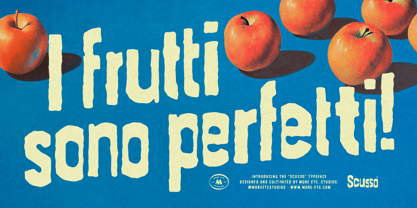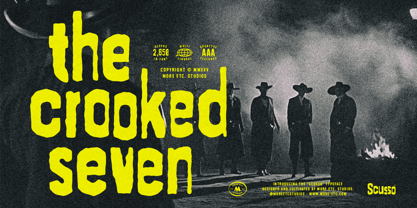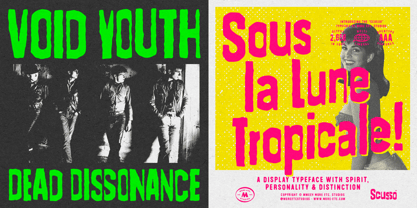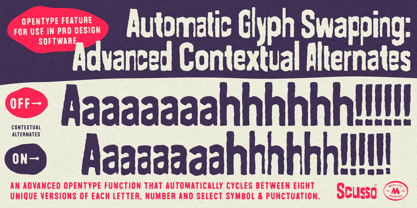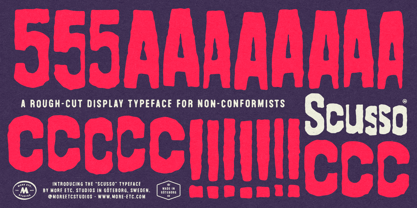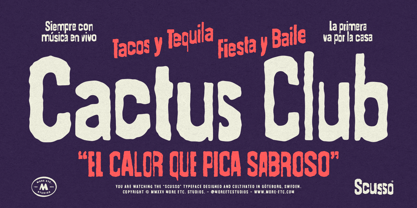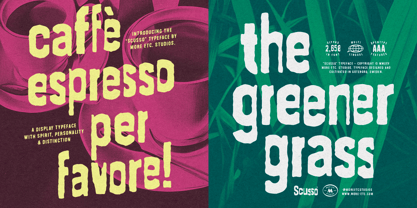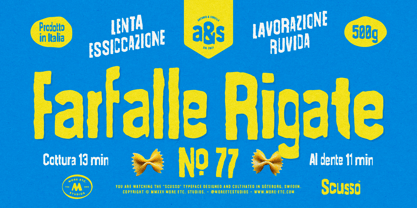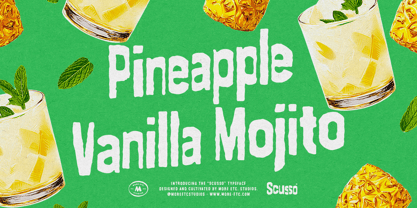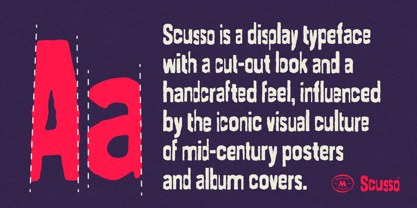
Scusso
Scusso is a display typeface with a focus on authenticity, passion and personality. It has a distinct cut-and-paste aesthetic and handcrafted character, inspired by mid-century posters and album covers.
• Display typeface with spirit, personality & distinction.
• 2650 glyphs in font.
• Each letter, numeral and select punctuation exists in 8 visually unique versions.
• Premium OpenType feature: Advanced Contextual Alternates.
• Language support covers over 200 Latin-based languages.
• Bold and playful typeface.
Aesthetics
Its irregular contours and subtle distortions suggest a handmade process, as if each letter were manually cut to form words and then duplicated on a low-quality photocopier to achieve its worn and imperfect look. With this visual foundation, Scusso is a great fit for bold and expressive design projects such as book covers, album art, branding, posters and packaging.
Language Support
The character set includes over 2,600 glyphs and a wide range of diacritics, offering full Latin Plus support and covering over 200 Latin-based languages spoken worldwide.
Advanced Contextual Alternates
More than just a typeface with personality, Scusso also includes a powerful contextual alternates feature for maximum typographic expression. Each letter, numeral and select punctuation or symbol exists in eight visually unique versions – one default and seven alternates. An advanced OpenType feature automatically substitutes between these variants, creating visual variation and a handcrafted appearance. By cycling glyphs based on their context, the system avoids repetition and introduces a sense of randomness. While not entirely foolproof, it promotes visual uniqueness. Users can also manually choose alternates via Stylistic Sets. The feature is available in any professional design software that supports the OpenType “Contextual Alternates” setting.
Premium Typeface
Scusso combines expressive design, advanced typographic logic and extensive language support in a premium type system. With a distinctive voice that elevates any design project, Scusso is more than a typeface. It’s a creative instrument designed for lasting visual impact.